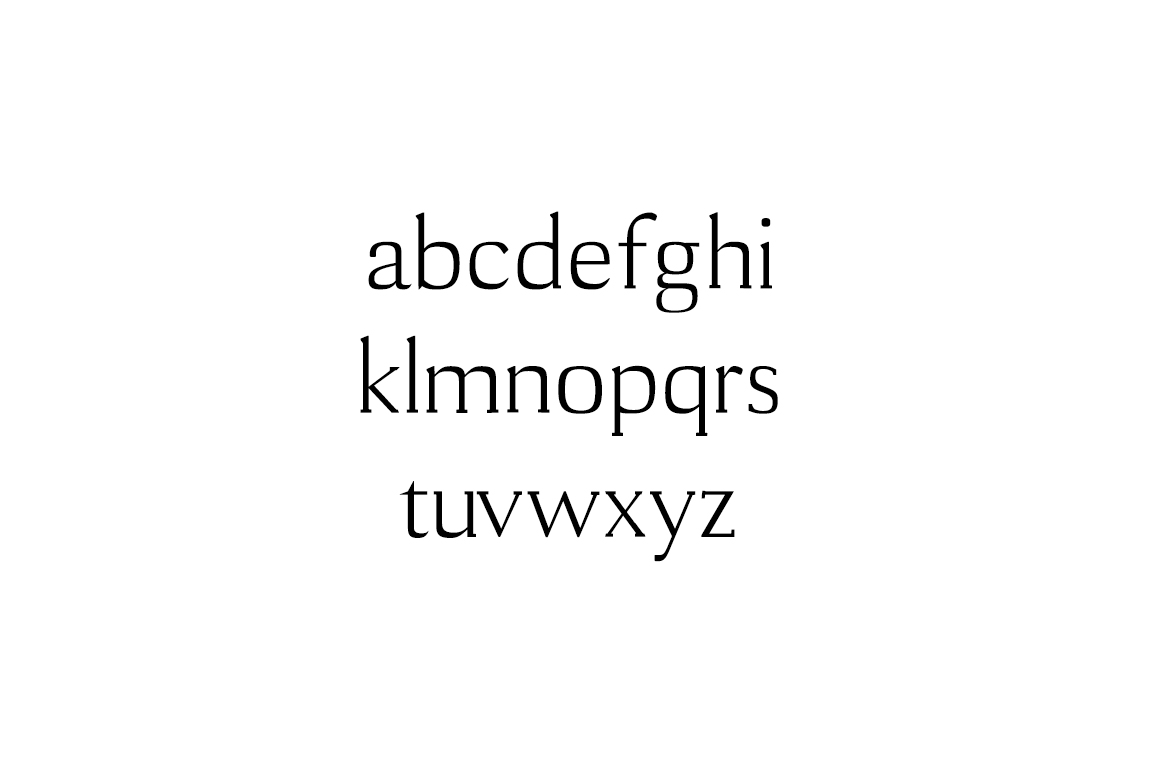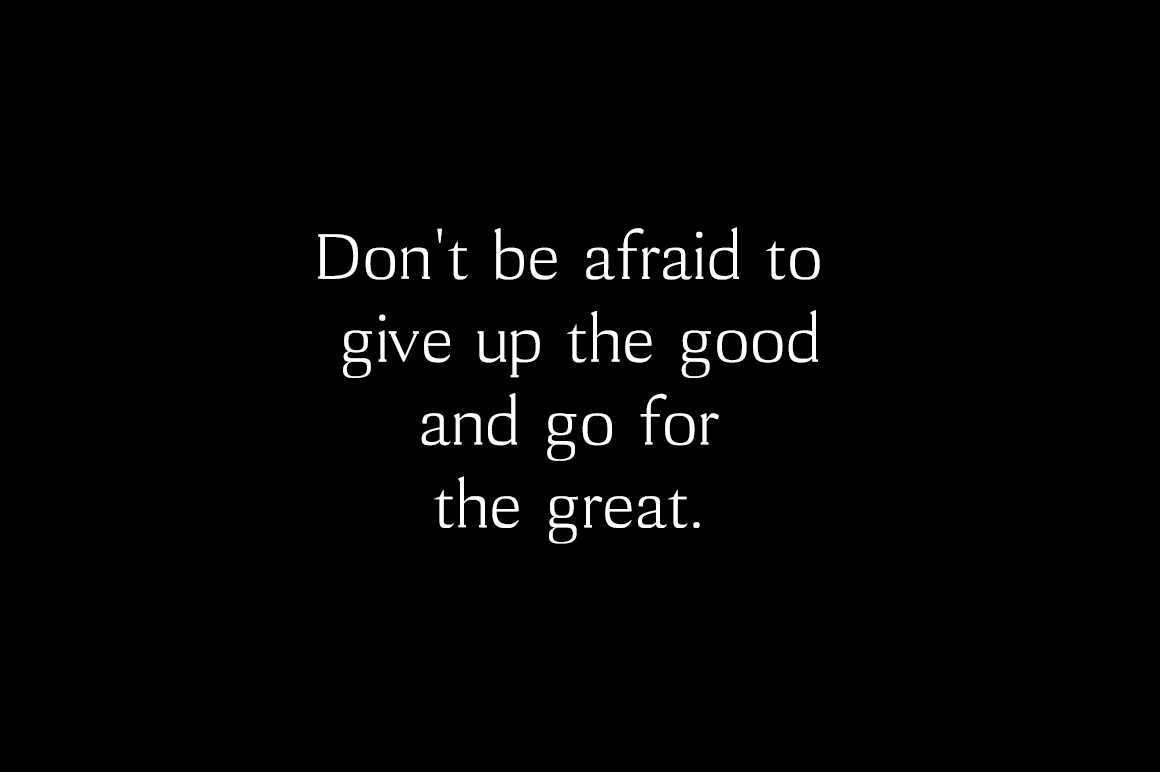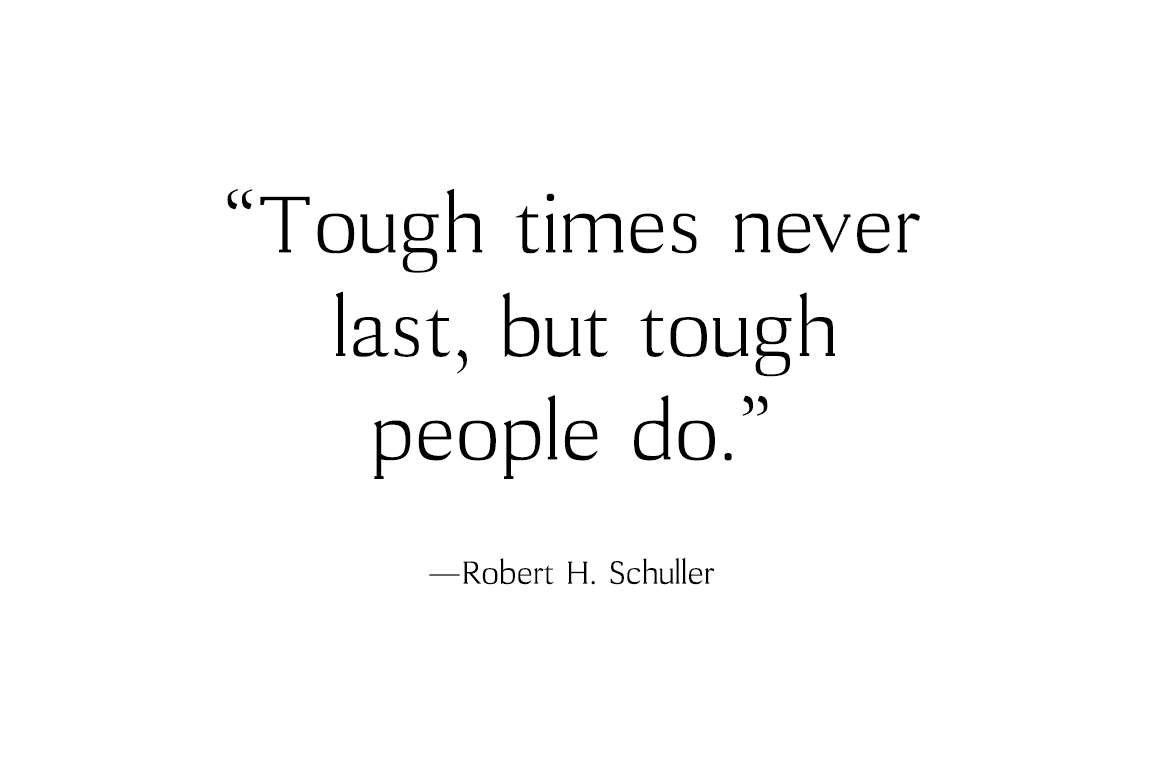
Cheston
Cheston: A Beautiful and Modern Slab Serif Font
Cheston is a beautifully constructed slab serif typeface that combines modern design with classic simplicity. This versatile font offers designers a wide range of typographic options, making it suitable for various design projects.
Key Features of Cheston Font
• Multiple Weights and Styles: Cheston comes in 5 different weights and styles, providing flexibility for various design needs.
• Modern Aesthetic: While maintaining the classic slab serif structure, Cheston offers a contemporary look.
• Versatile Application: Suitable for a wide range of design projects due to its simple yet elegant design.
• Well-Constructed: Cheston is noted for its excellent construction, ensuring quality typography.
Ideal Uses for Cheston
Cheston’s versatile design makes it particularly well-suited for:
• Editorial layouts and magazine designs
• Branding and logo design
• Web design and digital media
• Advertising and marketing materials
• Book covers and publishing projects
Comparison with Other Slab Serif Fonts
While Cheston shares characteristics with other slab serifs like Tecnica Slab Family, its modern twist sets it apart. Unlike more traditional slab serifs such as Osgood Slab, Cheston offers a more contemporary approach to typography while maintaining the classic slab serif structure.
When incorporating Cheston into your designs, consider the following tips:
• Experiment with different weights and styles to create hierarchy and visual interest in your layouts
• Use for both headlines and body text to showcase its versatility
• Pair with sans-serif fonts for a balanced, modern look
• Consider using it in projects where you want to combine classic slab serif structure with contemporary elegance
Cheston is an excellent choice for designers looking to add a modern and versatile slab serif to their typographic toolkit. Its range of weights and styles, combined with its beautiful construction, make it stand out in the world of typography. Whether you’re working on logo designs, editorial layouts, or creating eye-catching website headers, Cheston offers the perfect blend of classic simplicity and modern design.
Explore how Cheston can elevate your design projects with its beautiful, modern aesthetic and versatile range of styles. From branding to editorial design, this font provides the tools to create impactful and stylish typography that stands out in various design contexts.